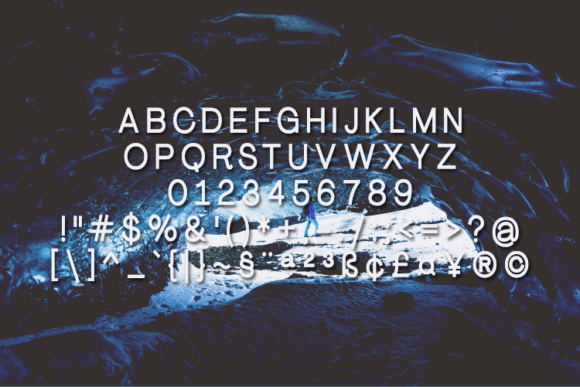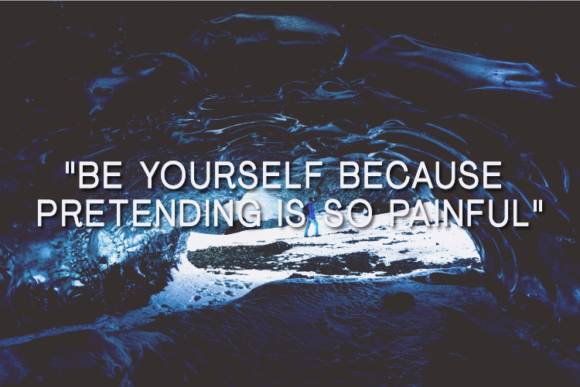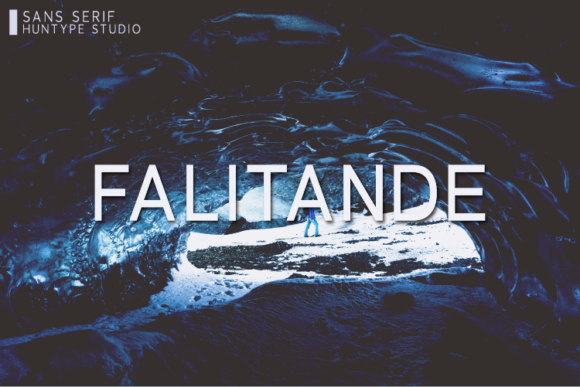
Introducing Falitande Font: The Ultimate Sans Serif for Creative Projects
Are you tired of using the same old fonts for your design projects? Look no further! Falitande Font is here to revolutionize the way you approach typography. This minimal and neat sans serif font is perfect for designers and crafters looking to add a touch of elegance and sophistication to their work.
What Makes Falitande Font Stand Out?
Falitande Font is a versatile and modern sans serif font that can easily be matched to an incredibly large set of projects. Its clean and minimalist design makes it perfect for a wide range of applications, from branding and advertising to packaging and digital media. Whether you’re working on a logo, brochure, or website, Falitande Font is sure to make your creative ideas stand out!
Key Features of Falitande Font
- Minimal and Neat Design: Falitande Font boasts a clean and minimalist design that exudes elegance and sophistication.
- Versatile and Adaptable: This font can be used for a wide range of projects, from print to digital media.
- Easy to Read: The clear and simple design of Falitande Font makes it easy to read, even at small sizes.
- Highly Legible: The font’s careful attention to detail ensures that it remains highly legible, even in complex layouts.
Why Choose Falitande Font?
With so many fonts available, why choose Falitande Font? Here are just a few reasons why designers and crafters are falling in love with this amazing sans serif font:
- Unique and Creative: Falitande Font offers a fresh and unique perspective on sans serif typography.
- Consistency: Using a consistent font throughout your project helps to create a cohesive and professional look.
How to Use Falitande Font in Your Projects
Using Falitande Font in your projects is easy! Here are a few tips to get you started:
- Pair it with Other Fonts: Falitande Font pairs well with other sans serif fonts, as well as serif fonts for a contrasting look.
- Experiment with Sizes: Try using Falitande Font in different sizes to create visual interest and hierarchy.
- Play with Colors: Falitande Font looks great in a variety of colors, from bold and bright to subtle and muted.